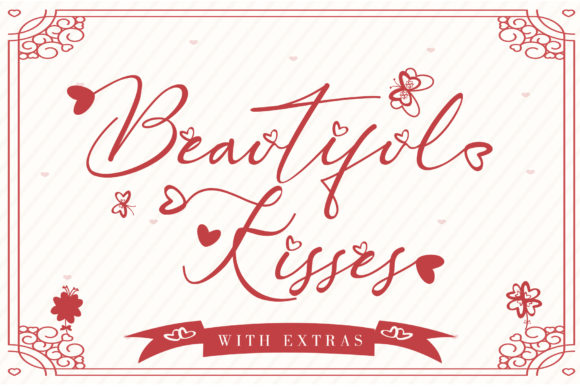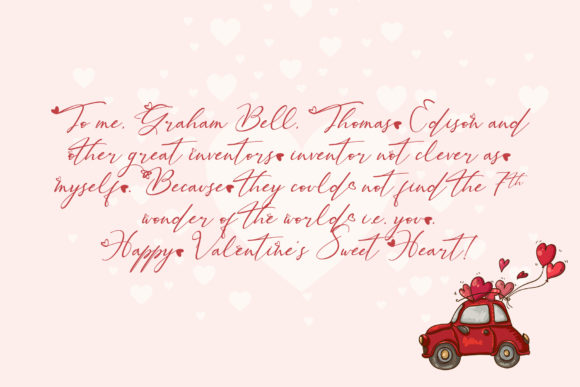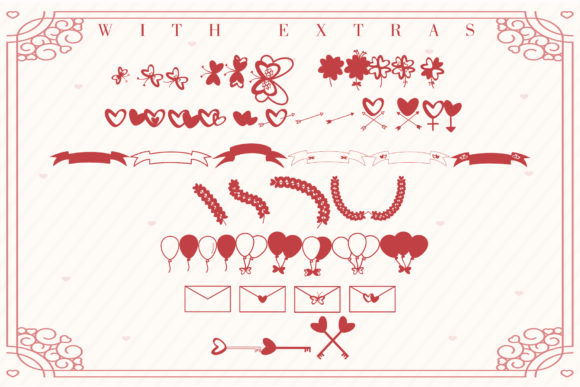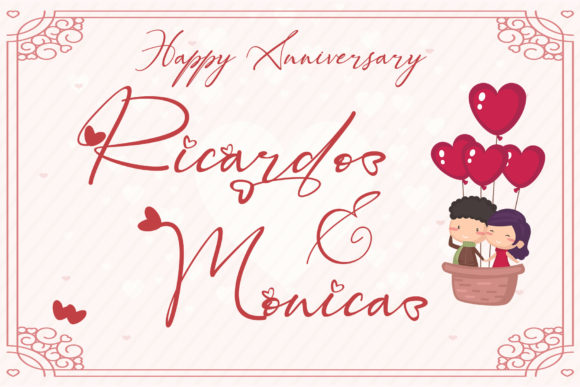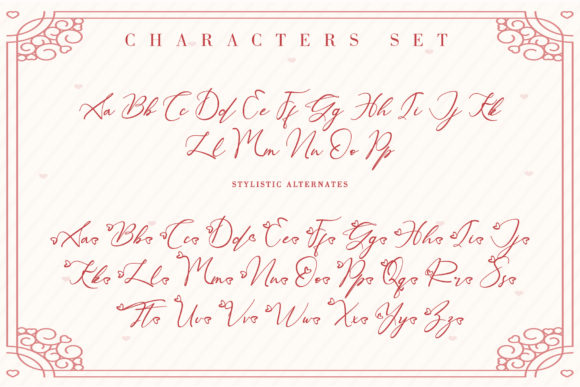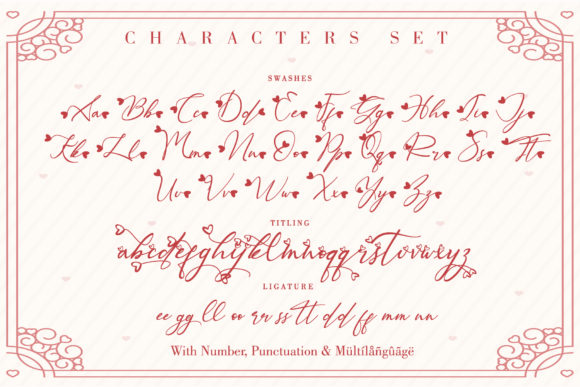
Beautiful Kisses Font
About Beautiful Kisses Font
Beautiful Kisses Surely is an extraordinary script and the perfect font to express your love. “Love must always be worthy of happiness”. It has an amazingly beautiful and elegant style.